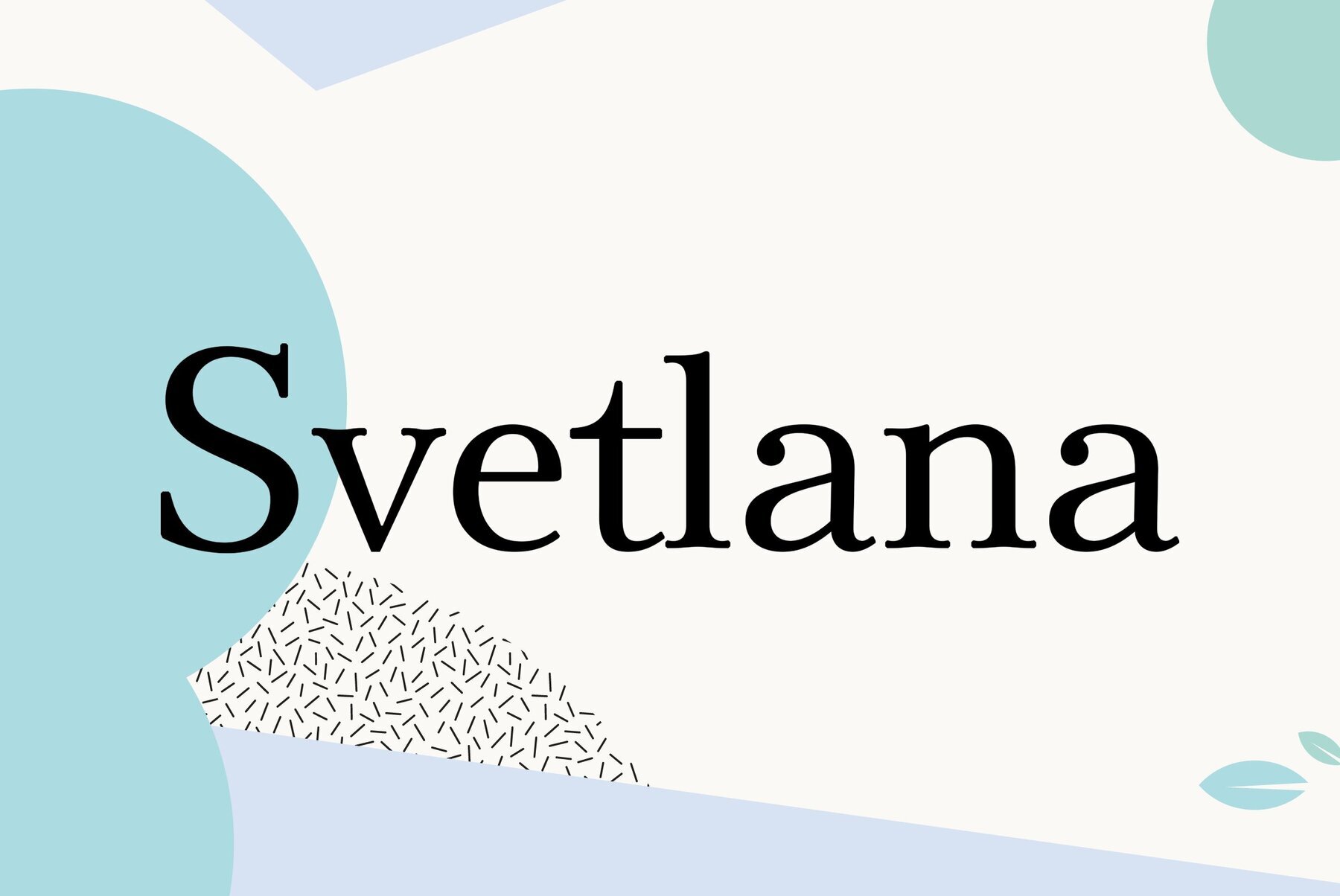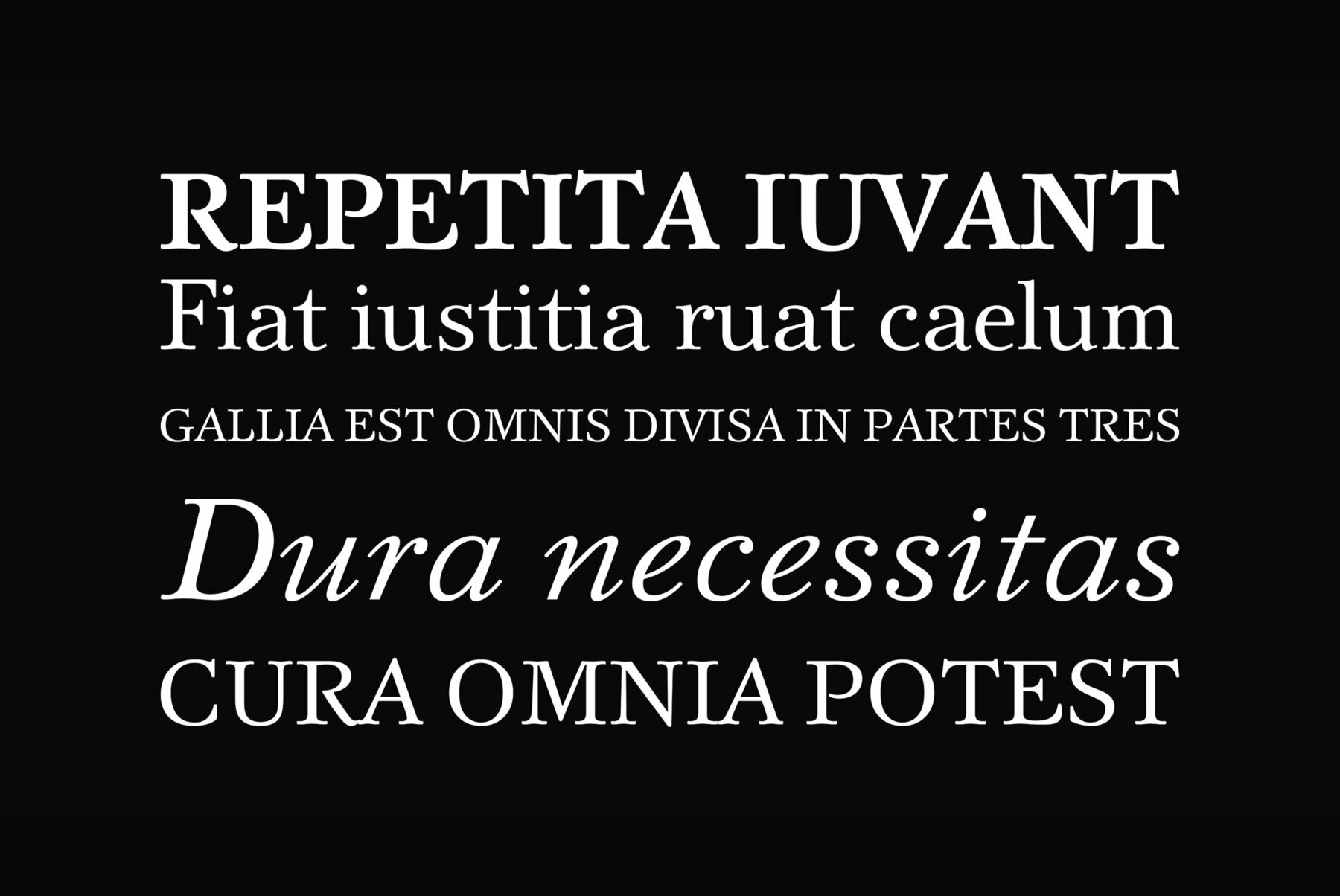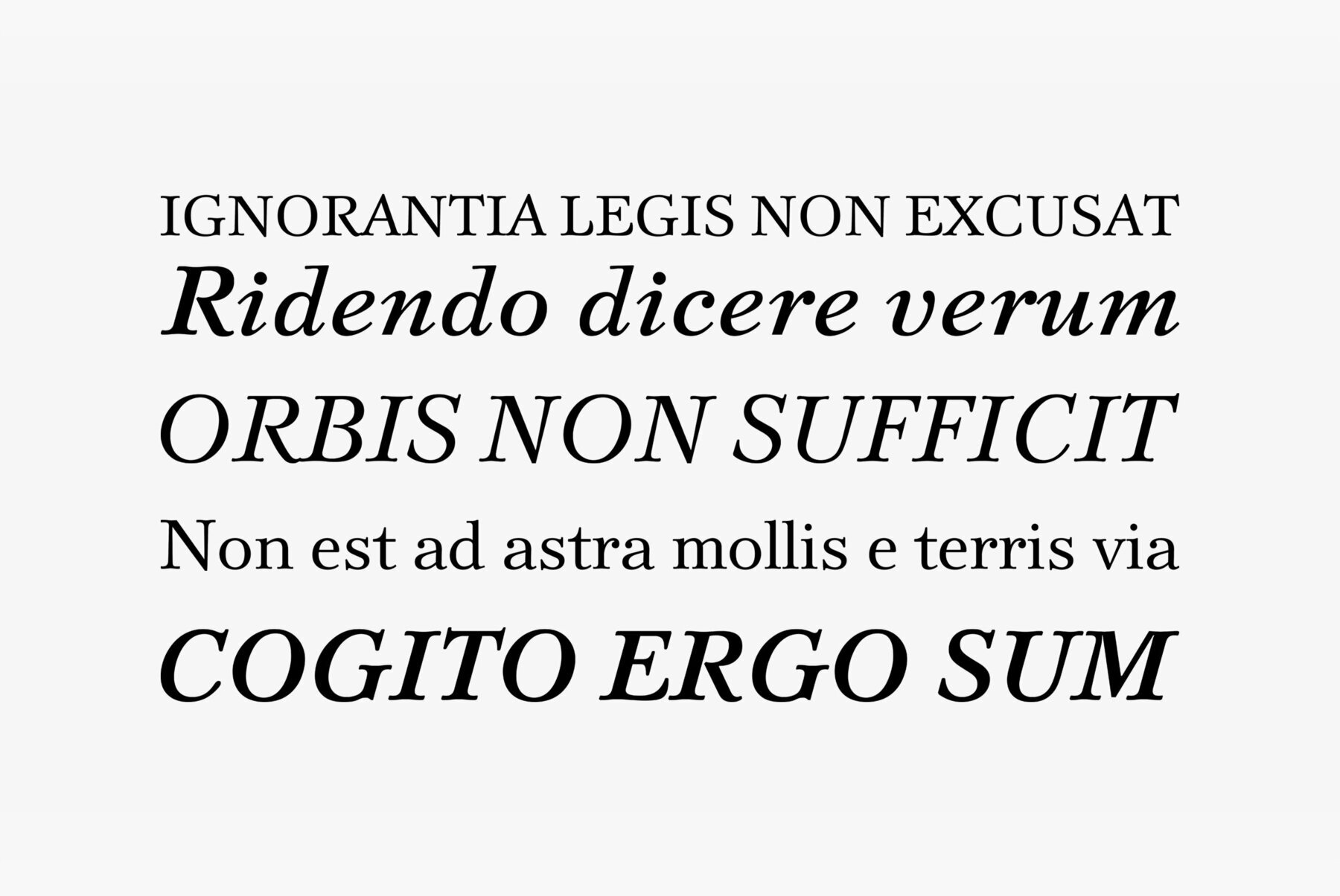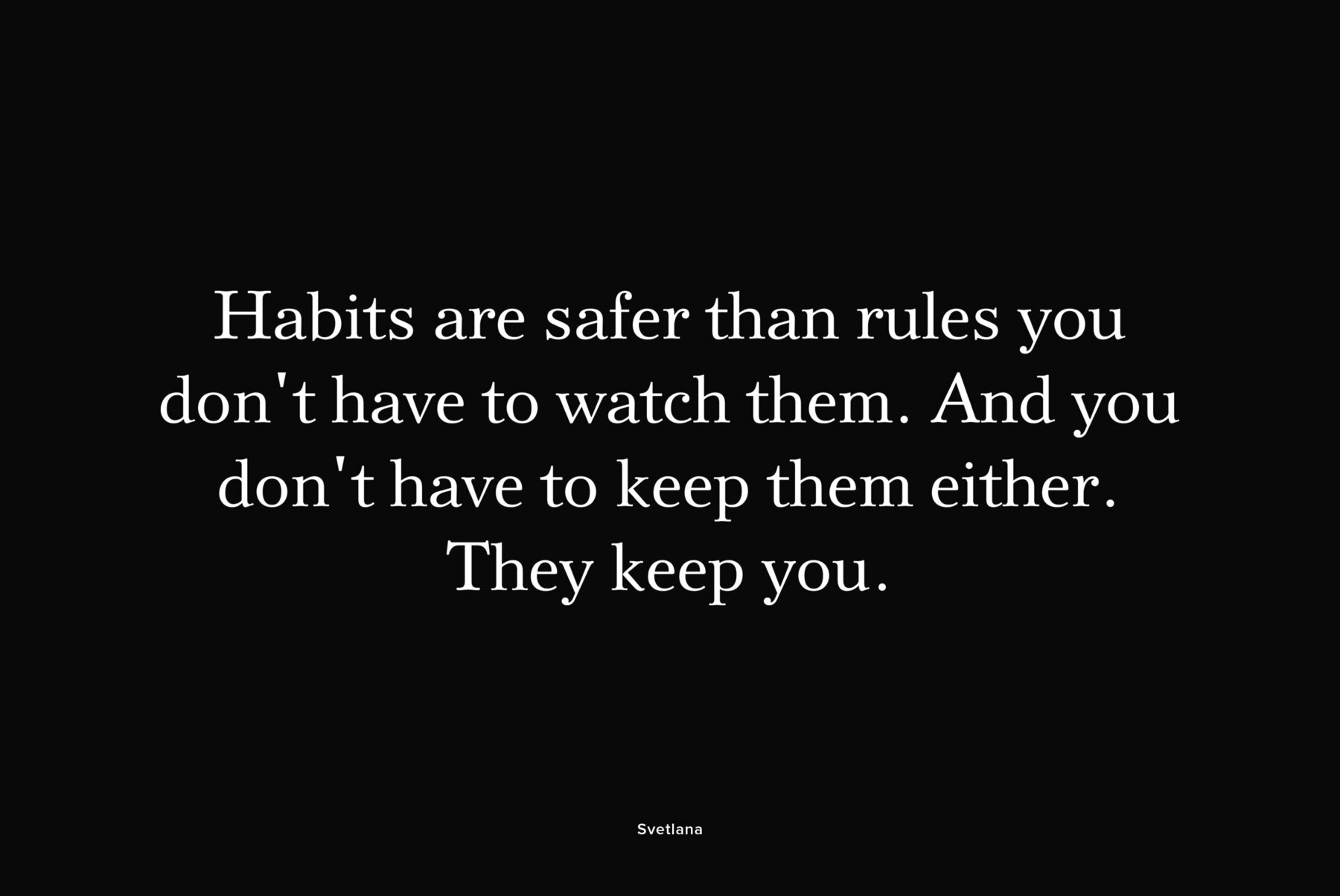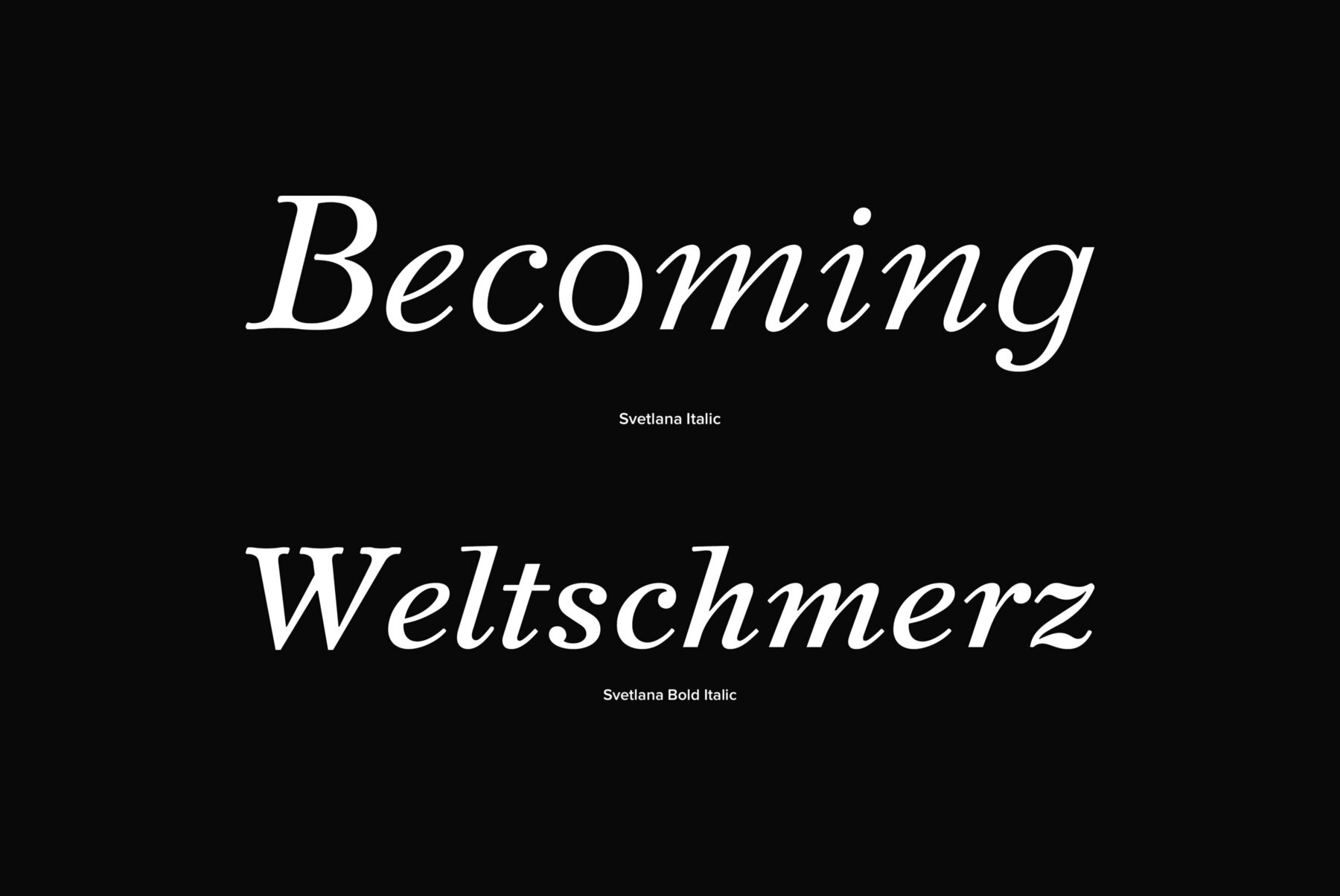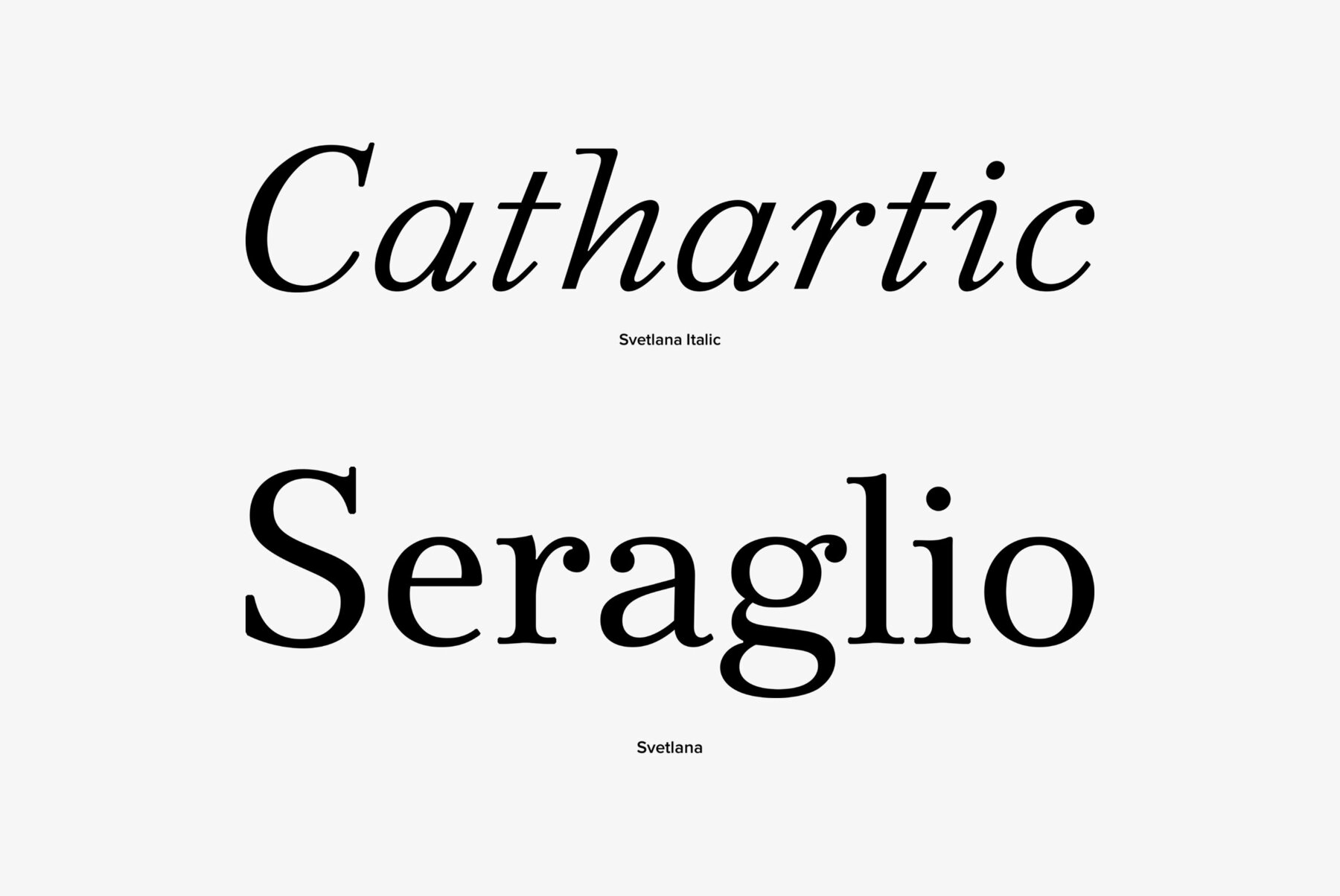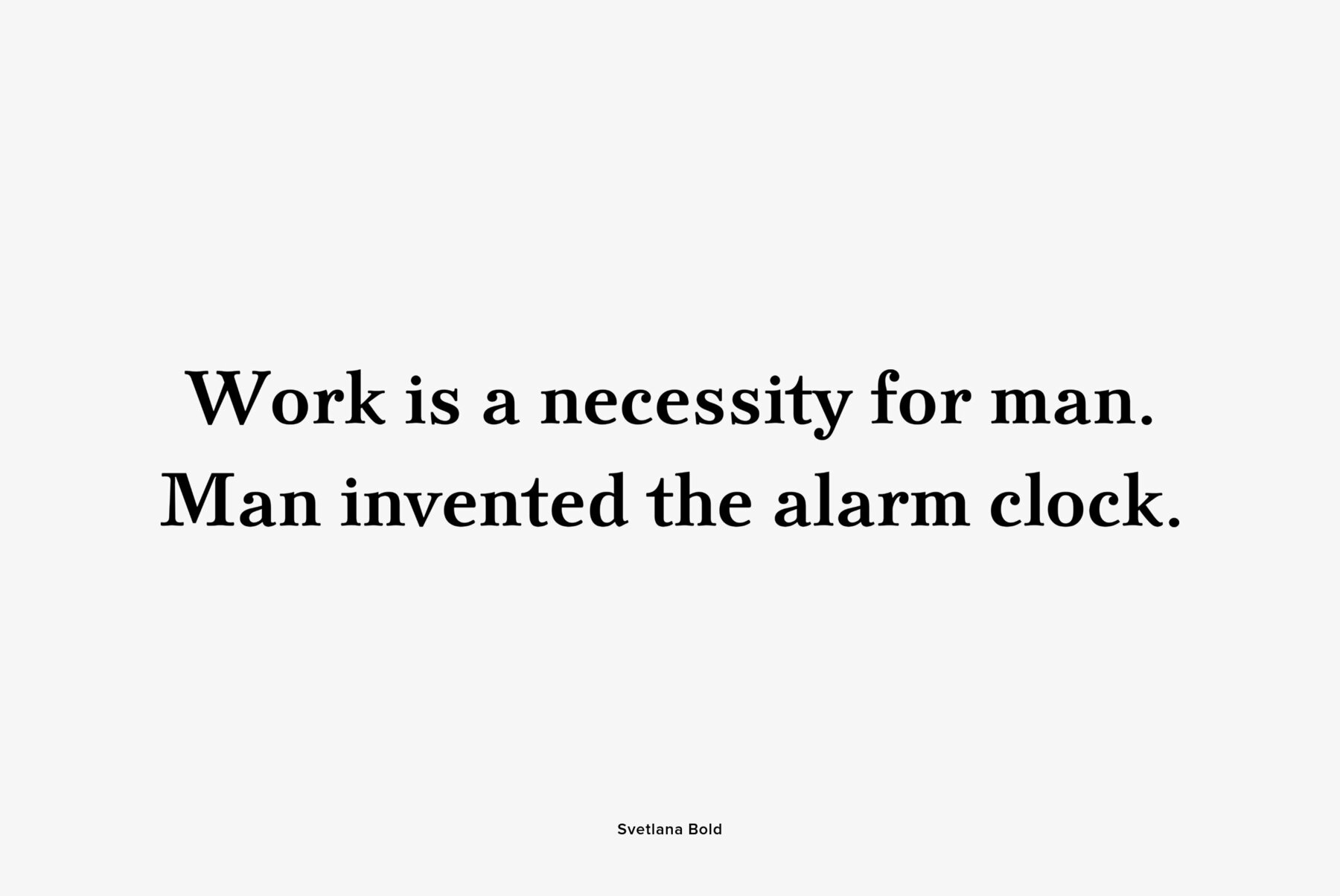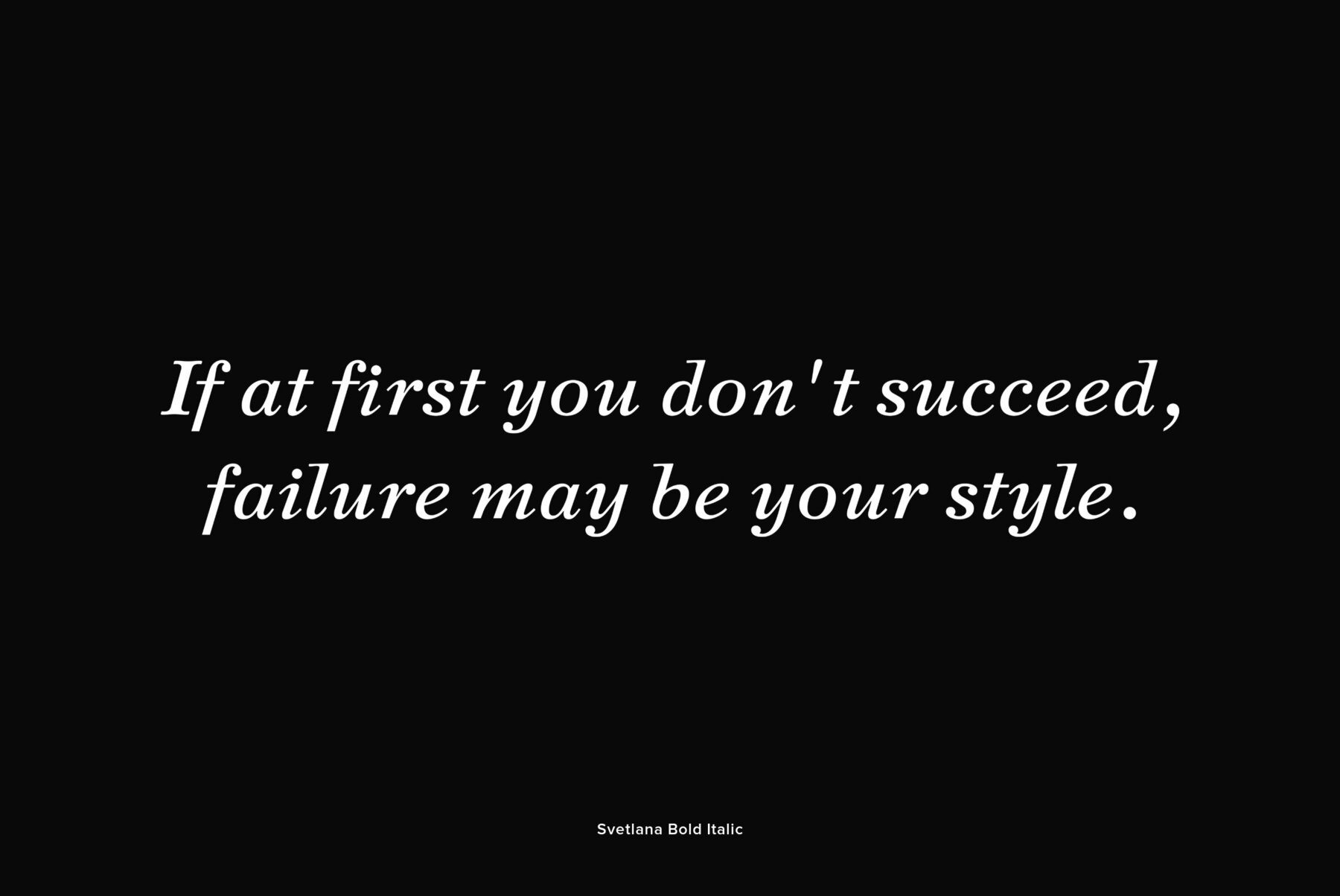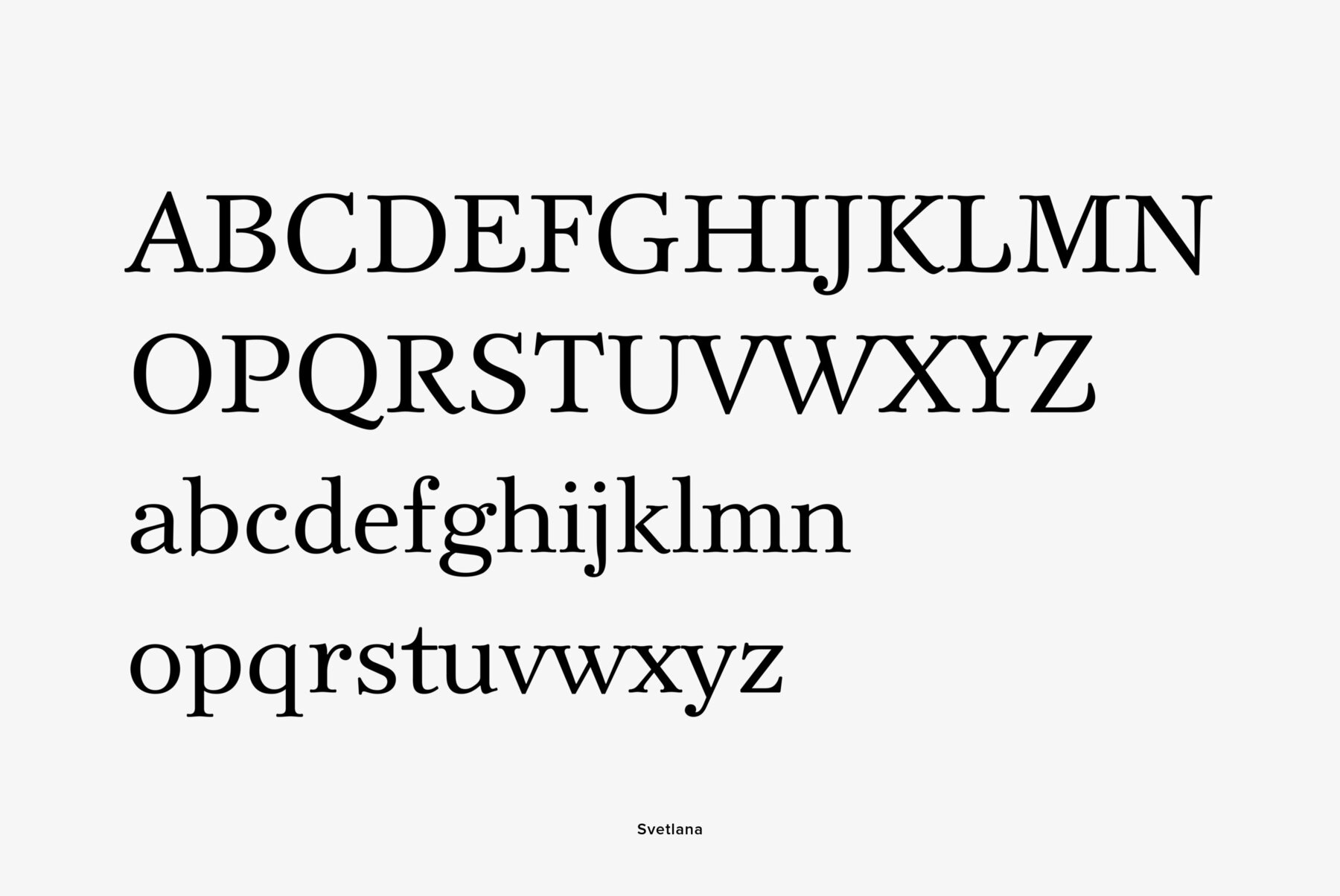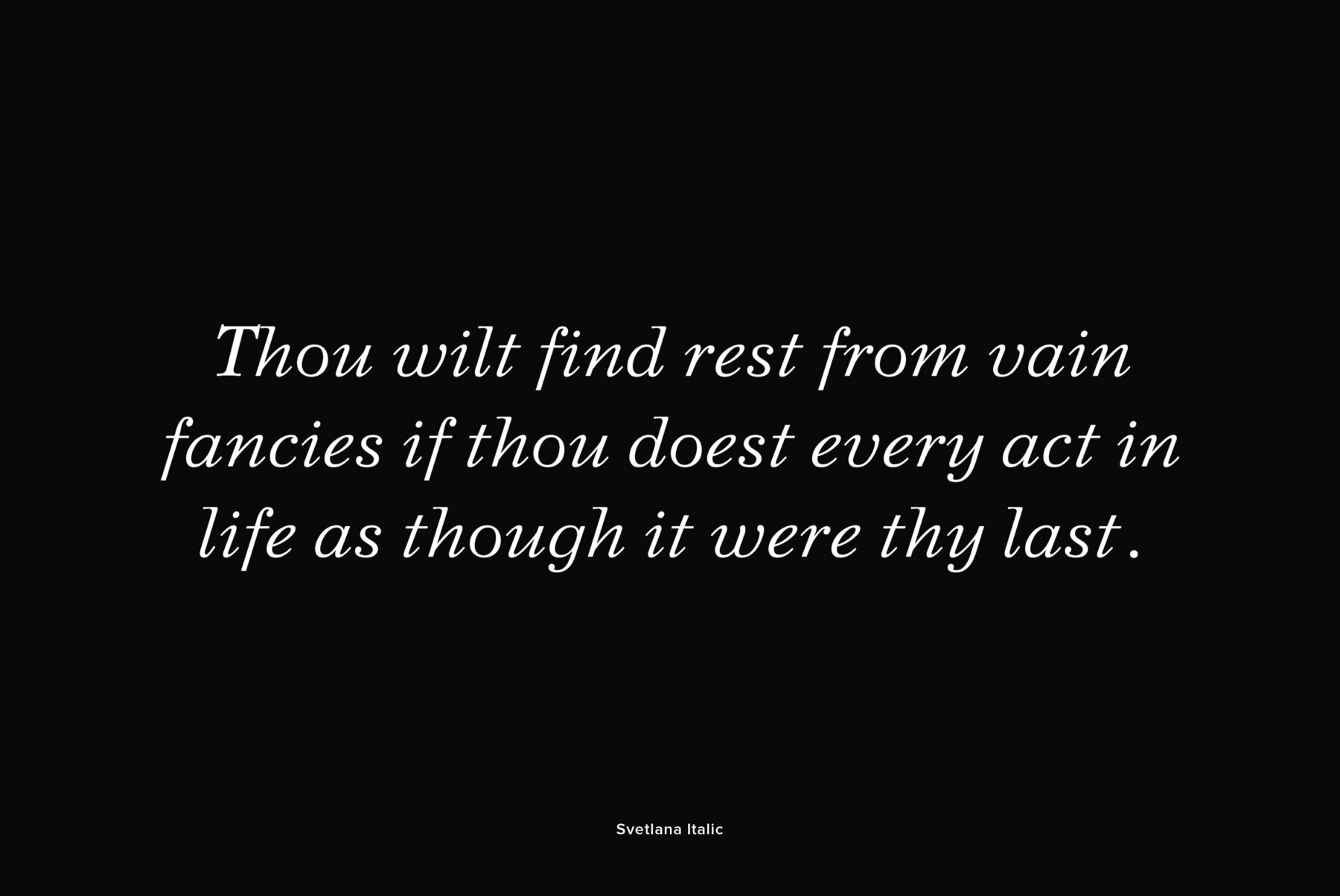
Svetlana
Designed in 1976–81 by Michael Rovensky (1902–1996) as the body text companion of his Bazhanov Display typeface (1961), of Polygraphmash typefoundry. Based on the lettering by Moscow book designer Dmitry Bazhanov (1902–1945). With old-fashioned flavor, this design recreates the Soviet hand-lettering style of the 1940s. The digital version was developed at ParaType (ParaGraph) in 1996 by Lyubov Kuznetsova.